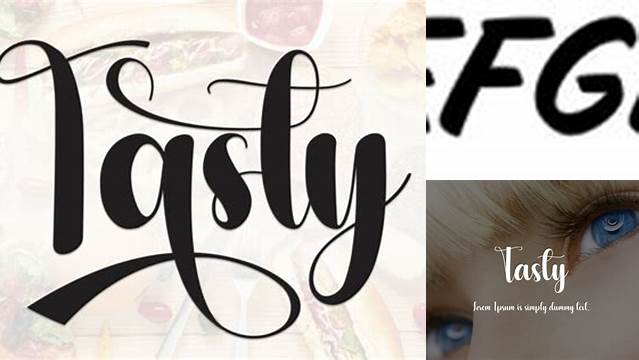
Tasty Medium Font: Free Download Guide
What is Tasty Medium Font?
Before we jump into the nitty-gritty of downloading, let’s talk about what makes the Tasty Medium Font so special. It's not just another typeface; it’s a carefully crafted design that balances modern aesthetics with practical usability. The 'Medium' weight gives it a solid presence without being overly bold, making it perfect for a variety of applications. Imagine using this font for your website’s headings – it’s clear, engaging, and instantly grabs attention. Or picture it in a sleek logo design, conveying a sense of sophistication and approachability. What sets Tasty Medium Font apart from other fonts is its versatility. You can use it for both digital and print projects, and it always looks polished and professional. Its clean lines and balanced letterforms make it easy on the eyes, ensuring that your message is conveyed effectively. So, whether you're a designer, a marketer, or just someone who loves beautiful typography, the Tasty Medium Font is a valuable asset to have in your toolkit.
Why Choose Tasty Medium Font?
Okay, so why should you specifically choose the Tasty Medium Font over the thousands of other fonts out there? Great question! First off, its readability is top-notch. You want a font that’s easy on the eyes, especially for longer texts or website content. Tasty Medium Font nails this. Secondly, it’s versatile. Seriously, you can use it for anything. Logos, websites, presentations, posters – you name it! The medium weight strikes a perfect balance, making it suitable for both headings and body text. Its modern and clean design adds a touch of sophistication without being too over-the-top. It’s the kind of font that quietly elevates your design without screaming for attention. Furthermore, choosing a font like Tasty Medium can help you maintain consistency across all your branding materials. This consistency builds recognition and trust with your audience. When people see the same font used consistently, they start to associate it with your brand, making your messaging more impactful. So, if you’re looking for a font that’s both practical and stylish, Tasty Medium Font is definitely worth considering.
Key Features of Tasty Medium Font
Let's break down the features that make the Tasty Medium Font a standout choice. First, its balanced weight is a key asset. The 'Medium' weight provides a strong presence without being overly bold, making it suitable for a wide range of applications. This balance ensures that the font is both readable and visually appealing. Another important feature is its clean and modern design. The font’s letterforms are carefully crafted with smooth lines and balanced proportions, giving it a polished and professional look. This modern aesthetic makes it a great choice for contemporary designs. Additionally, the Tasty Medium Font includes a comprehensive character set. This means it supports a wide range of characters, including uppercase and lowercase letters, numbers, punctuation marks, and special symbols. This extensive character set ensures that you can use the font in various languages and for different types of content. The spacing and kerning are also meticulously adjusted to ensure optimal readability. This attention to detail enhances the overall visual appeal of the font, making it a pleasure to read. In summary, the key features of Tasty Medium Font – its balanced weight, clean design, comprehensive character set, and optimized spacing – make it a versatile and reliable choice for any design project.
Using Tasty Medium Font in Graphic Design
The Tasty Medium Font isn't just a pretty face; it's a workhorse in the world of graphic design. Its versatility makes it a go-to choice for a wide range of projects. For logos, the clean and modern design of Tasty Medium Font can convey a sense of professionalism and sophistication. Its balanced weight ensures that the logo is readable and visually appealing. In branding materials, such as business cards, brochures, and websites, Tasty Medium Font can help maintain a consistent and cohesive brand identity. Its readability makes it suitable for both headings and body text. For posters and flyers, the font's clarity and presence can capture attention and effectively communicate your message. Its adaptability allows it to be used in both bold, eye-catching designs and more subtle, understated layouts. When using Tasty Medium Font in graphic design, consider its strengths and choose applications that highlight its best features. Experiment with different sizes, weights, and colors to achieve the desired effect. Pair it with complementary fonts to create visual interest and contrast. And always remember to maintain consistency in your design to create a professional and polished look. Whether you’re designing a logo, a website, or a poster, Tasty Medium Font can help you create stunning and effective visuals.
Tasty Medium Font and Accessibility
When choosing fonts for your designs, it’s important to consider accessibility. Accessible fonts are fonts that are easy for people with disabilities to read. The Tasty Medium Font, with its clean and readable design, can be a good choice for accessible designs. When using Tasty Medium Font in your designs, use a font size that is large enough to be easily read by people with visual impairments. Use adequate line spacing to improve readability and prevent eye strain. Use sufficient contrast between the text and the background to make the text easier to read. Avoid using color combinations that are difficult for people with color blindness to distinguish. Use alternative text for images and other non-text elements to make your designs accessible to people who use screen readers. Use semantic HTML to structure your content in a way that is accessible to screen readers. By considering accessibility when choosing fonts, you can create designs that are inclusive and usable by everyone. The Tasty Medium Font can be a valuable asset in your toolkit for creating accessible and user-friendly designs.